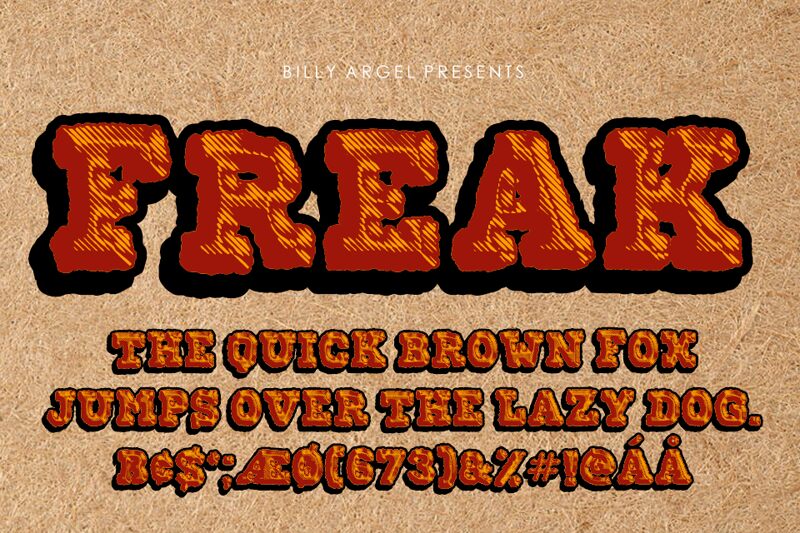
FREAK, a captivating display font by Billy Argel Fonts, strikes the perfect balance between boldness and expansiveness. With its extra-bold weight and semi-expanded width, this western-inspired typeface exudes a sense of adventure and ruggedness. Its distinct character makes it ideal for a wide range of projects. Unleash the wild spirit of FREAK in your next logo design, branding project, or poster. Embrace the untamed beauty of the Wild West with this font that will surely make your designs stand out from the crowd.